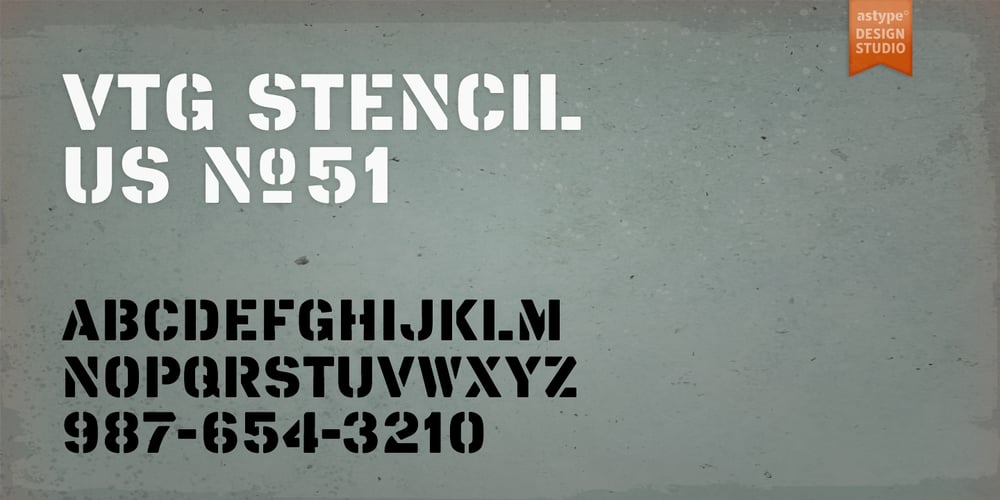
Vtg Stencil US No. 51 Font Family was designed by Andreas Seidel and published by astype. Vtg Stencil US No. 51 contains 1 styles and family package options. The Vtg Stencil series of fonts from astype are based on real world stencils. These stencils were used in the 50’s and 60’s by the US Army. If you are interested in the current stencil design, please have a look at Vtg Stencil US No.72.